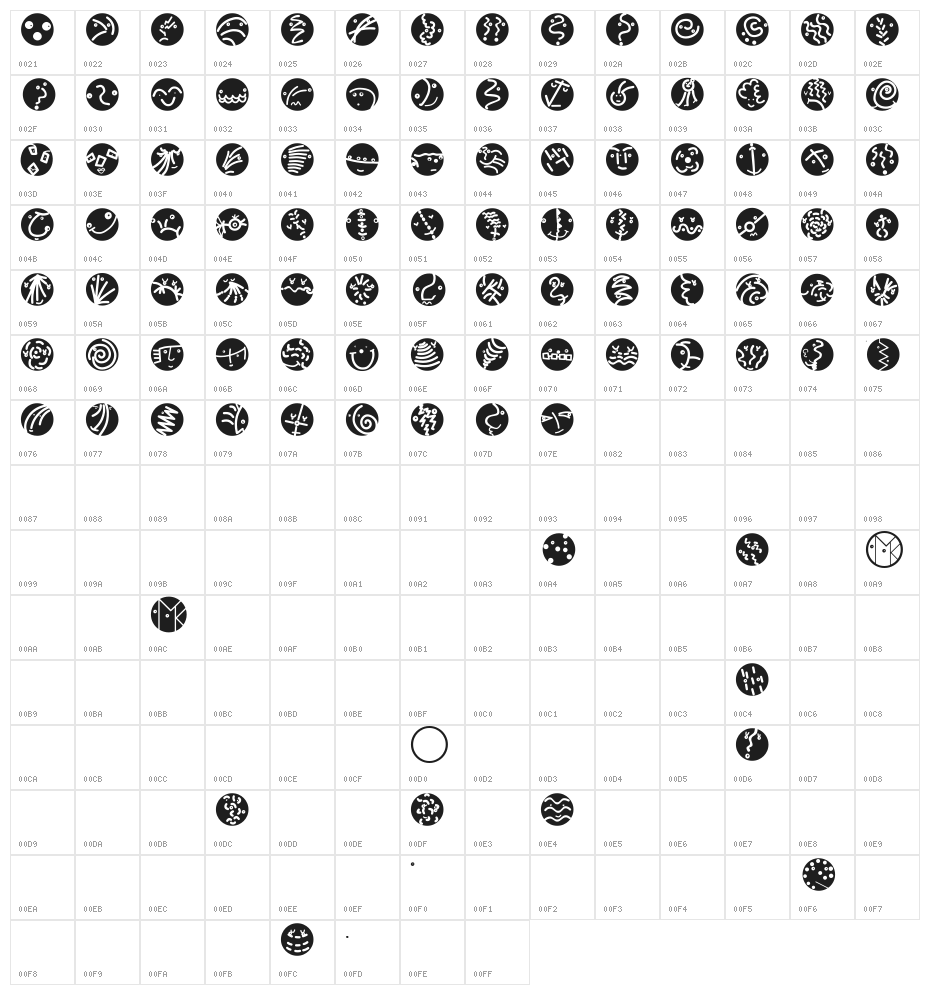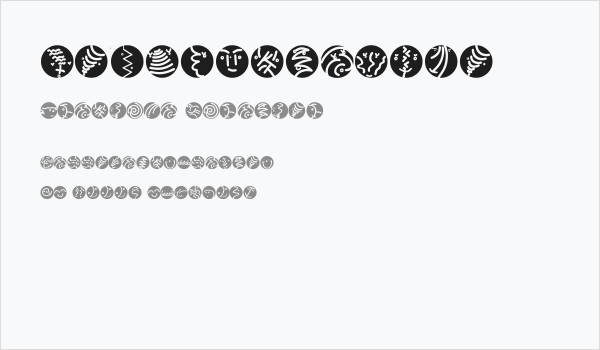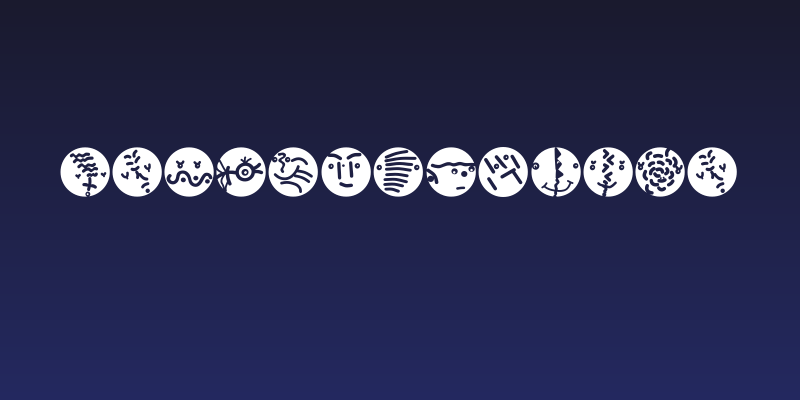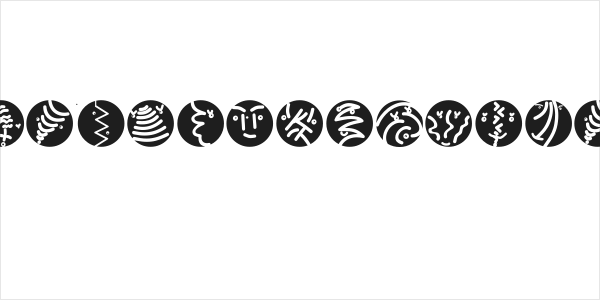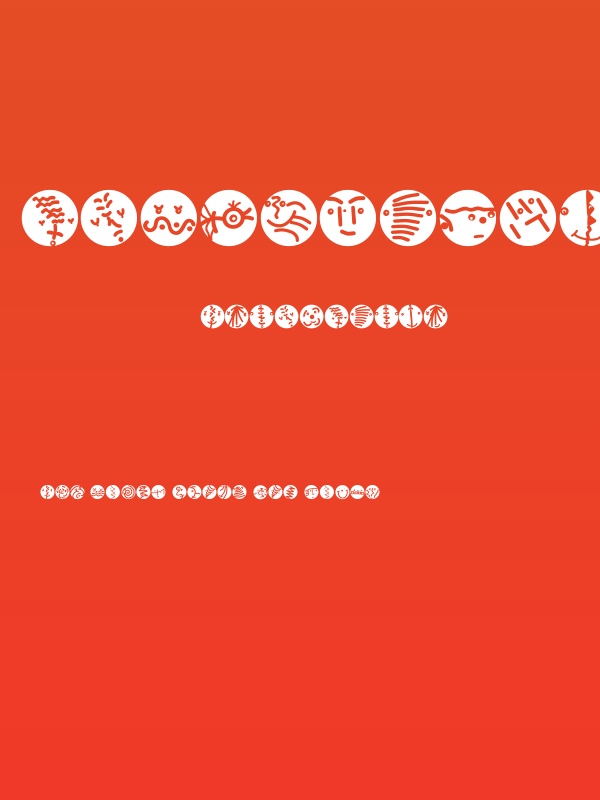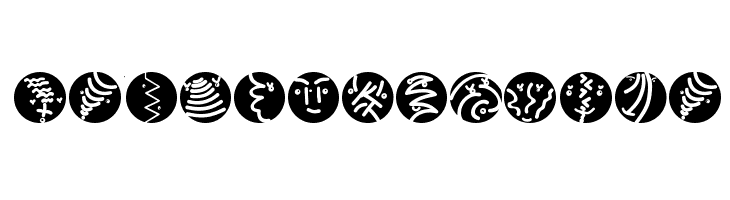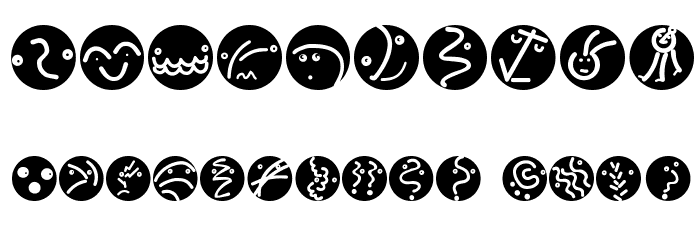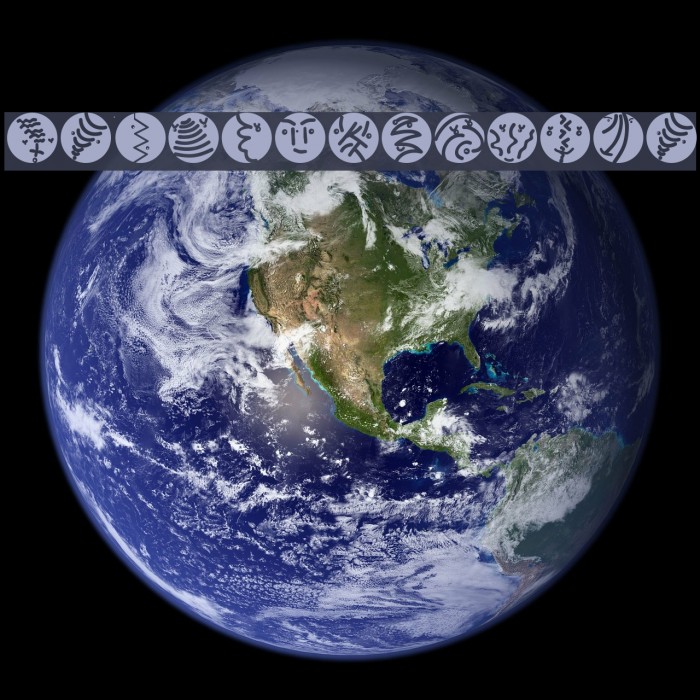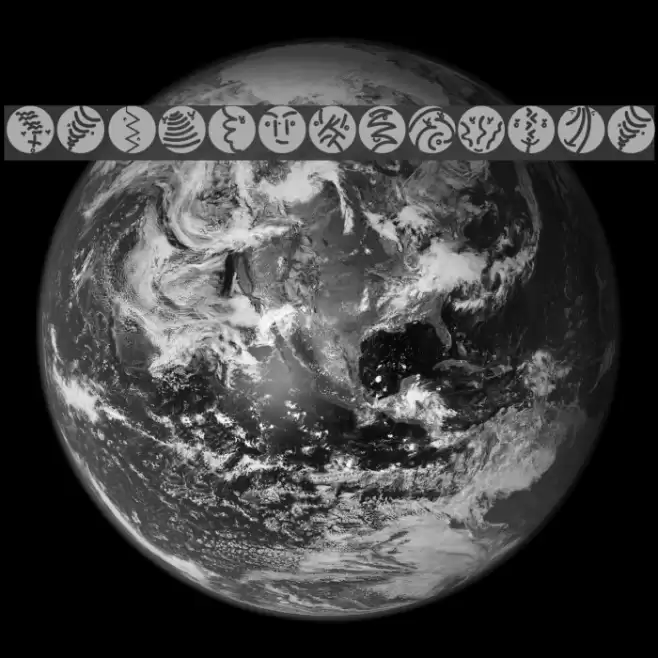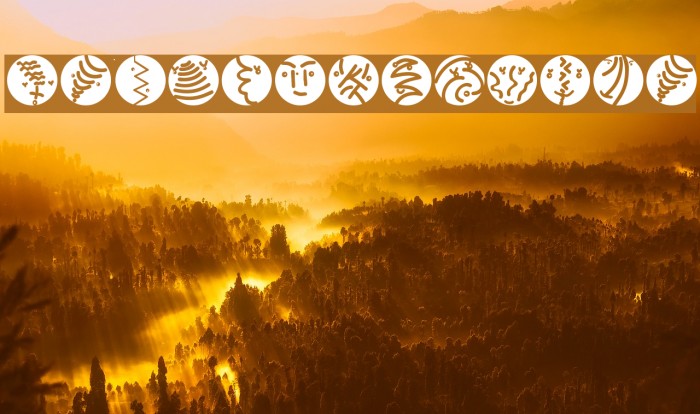
RoundFacesTwo Font
RoundFacesTwo Description
A playful, decorative typeface where each character is represented by a unique abstract or whimsical face within a solid black circle, using white lines and dots for features. The style is highly illustrative and non-traditional, with each glyph distinct and expressive.
| Overall Style | Decorative, Playful, Abstract |
| Use Case | Logos, Posters, Headlines, Children’s materials |
| Proposed Projects | Children’s books, playful branding, party invitations, creative posters, art projects. |